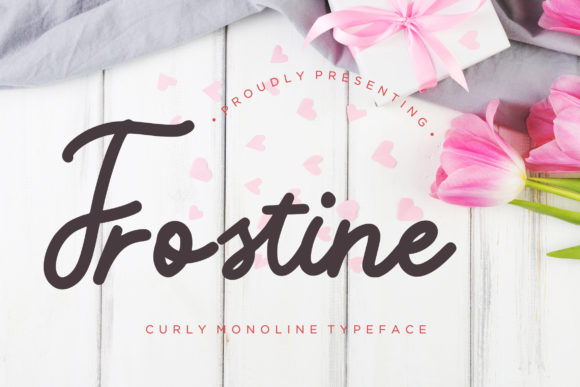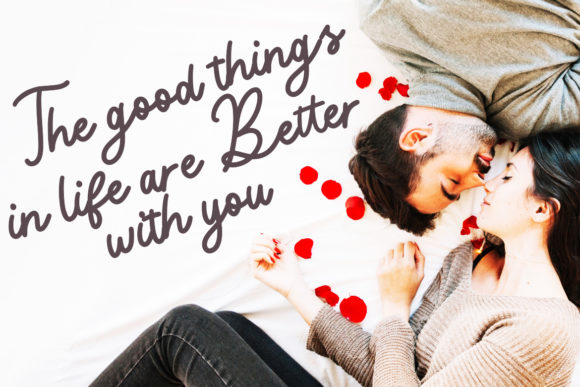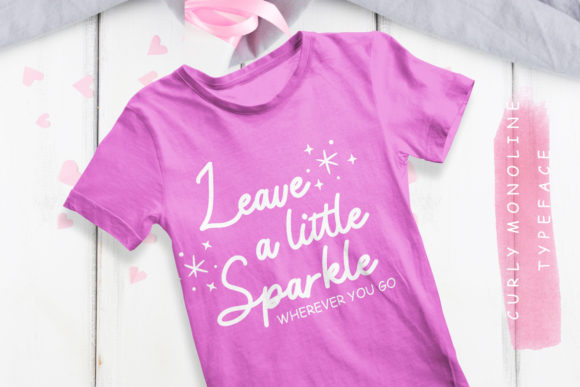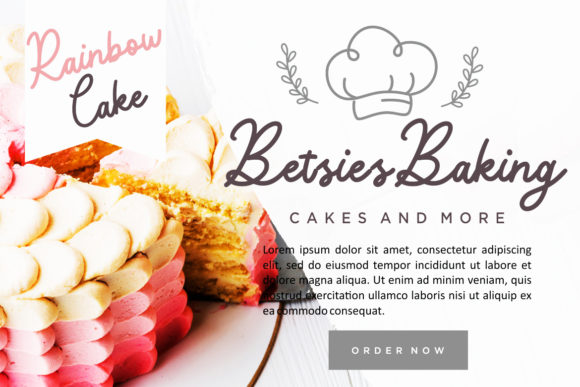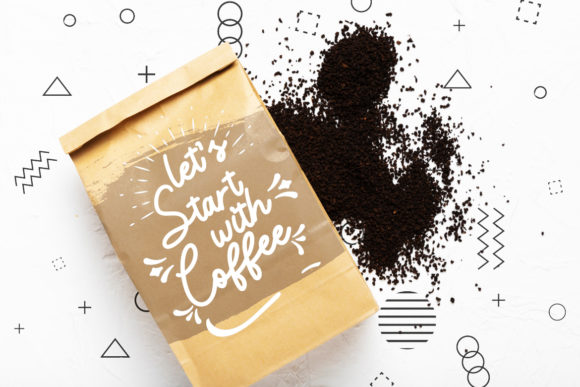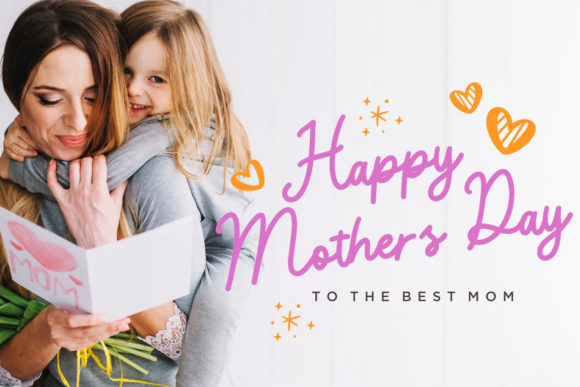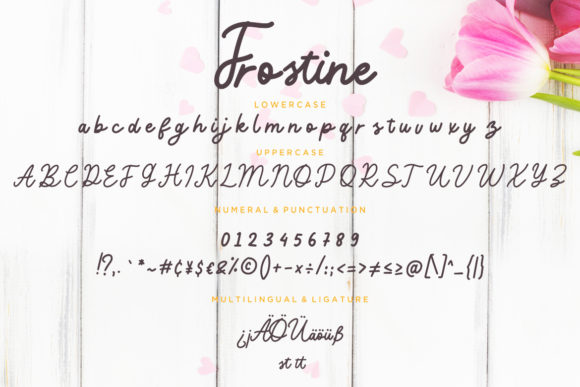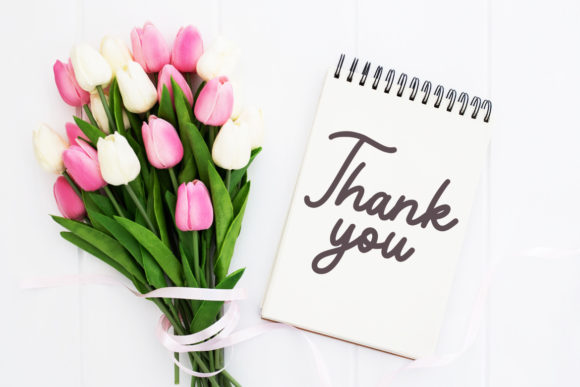
Frostine Font
Frostine is a timeless and classic handwritten font that adds a touch of elegance and charm to your designs. With its graceful and flowing letterforms, Frostine is perfect for creating beautiful and impactful designs that leave a lasting impression.
The simplicity and versatility of Frostine make it suitable for a wide range of design projects. Whether you’re working on branding materials, logo designs, wedding invitations, or any other creative endeavor, Frostine will enhance the overall aesthetic and bring a sense of sophistication to your work.
The clean and legible style of Frostine ensures that your message is easily conveyed to your audience. Its smooth and consistent strokes make it a pleasure to read, making it suitable for both print and digital applications. Whether it’s on posters, packaging, websites, or social media graphics, Frostine adds a touch of elegance and professionalism to any design.
One of the advantages of Frostine is its ability to pair well with other fonts. Its classic and timeless style complements both serif and sans-serif typefaces, allowing you to create harmonious and balanced typography combinations. Experiment with different font pairings to achieve the desired visual impact and create unique designs.
Frostine’s versatility extends beyond its standalone use. Its PUA encoding provides access to a range of alternate characters, ligatures, and swashes, allowing you to add decorative elements and customize your designs further. This flexibility empowers you to create truly personalized and unique compositions that align with your creative vision.
When using Frostine, consider the overall mood and message you want to convey. Its classic and elegant style lends itself well to sophisticated and refined designs, but it can also be used to add a touch of warmth and familiarity to more casual projects. Adapt the font’s size, color, and layout to create the desired impact and evoke the desired emotions in your audience.
In summary, Frostine is a classic handwritten font that exudes elegance and versatility. Its timeless style and clean letterforms make it the perfect choice for creating beautiful and impactful designs. Whether you’re working on branding materials, wedding invitations, or any other creative project, Frostine will elevate your designs and make them truly memorable. Embrace its versatility and customization options to bring your creative vision to life with style and sophistication.